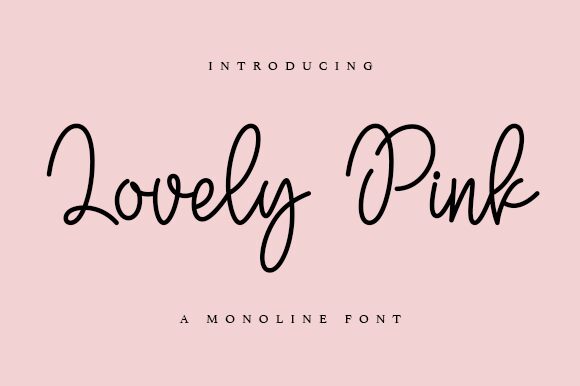
Lovely Pink, a creation of Wahyu Studio, stands out with its handwritten finesse and light weight, exuding a personal touch. The elegance of this font lies in its fluidity and organic feel, reminiscent of delicate penmanship. Each character flows into the next, creating an aesthetic harmony perfect for invitations, branding, and editorial design.
Its versatility is found in the gentle curves and subtle sophistication that make Lovely Pink suitable for various creative needs. Whether you're designing heartfelt greeting cards or crafting unique logos, this font offers a blend of charm and readability that can elevate your project's visual narrative. Embrace the bespoke beauty of Lovely Pink to add a whisper of grace to your design repertoire.